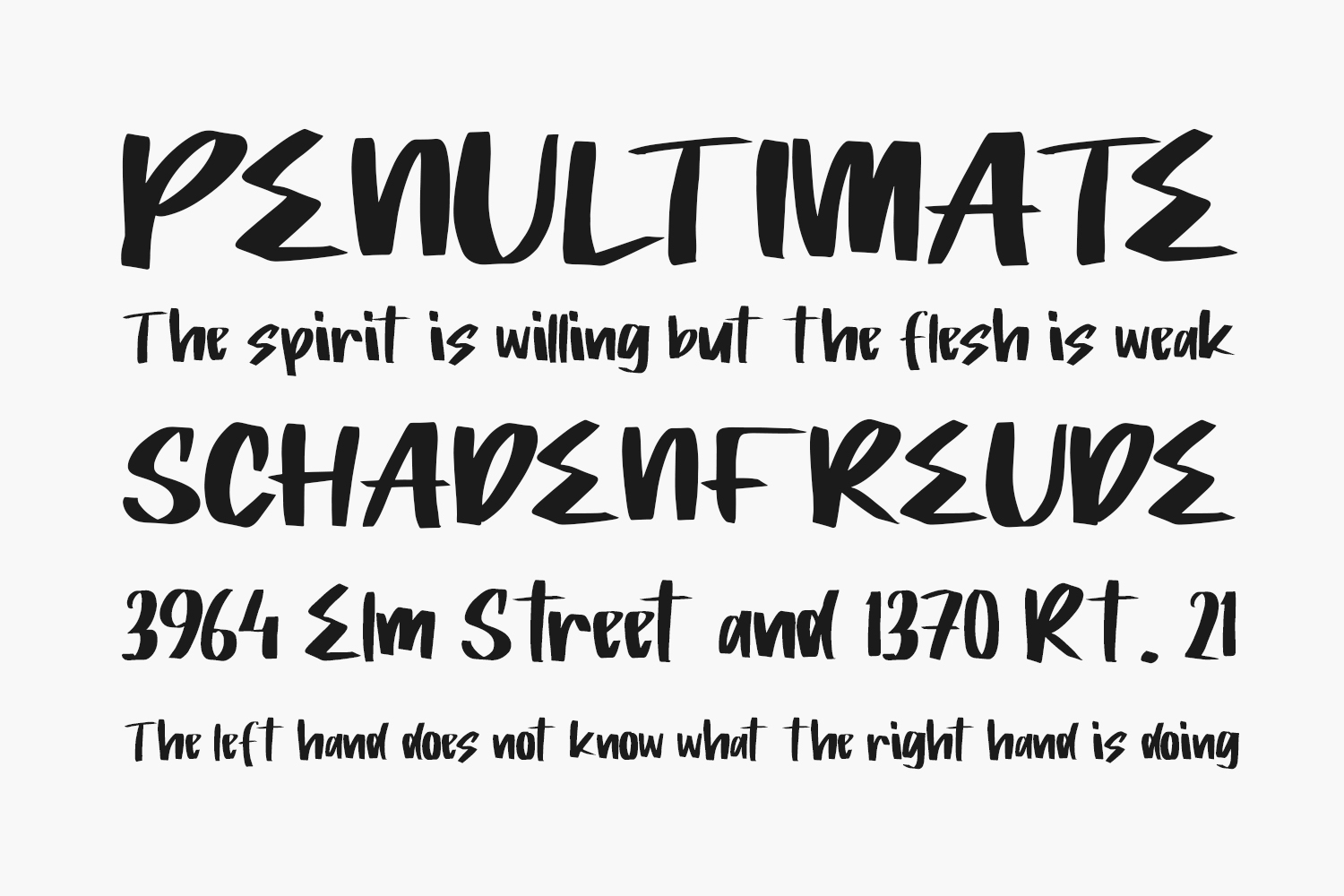
Roger Free Font is a cool, relaxed, and brushed handwritten font. It is defined by smooth curves and is perfect for fashion branding or editorial designs. Add it confidently to your projects, and you will love the results. Roger Free Font was designed by Integritype Studio and is free for personal use only. Please purchase the full version for commercial use.